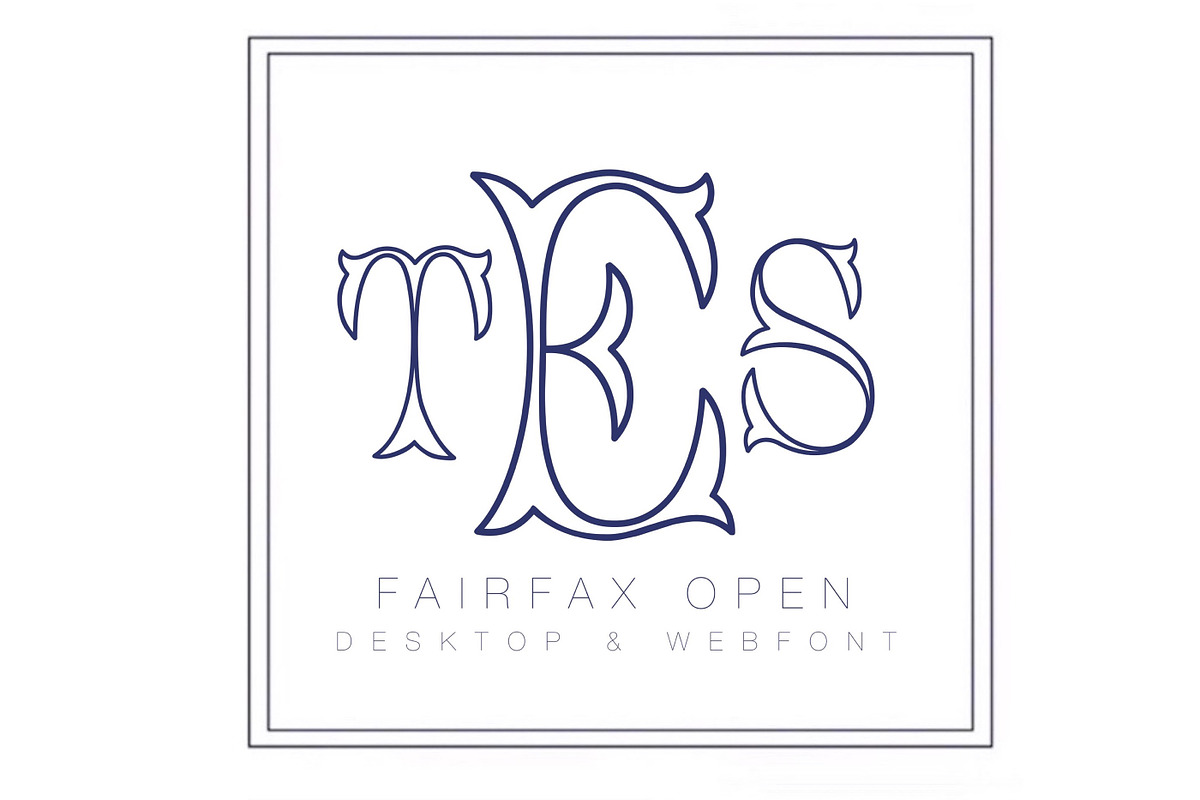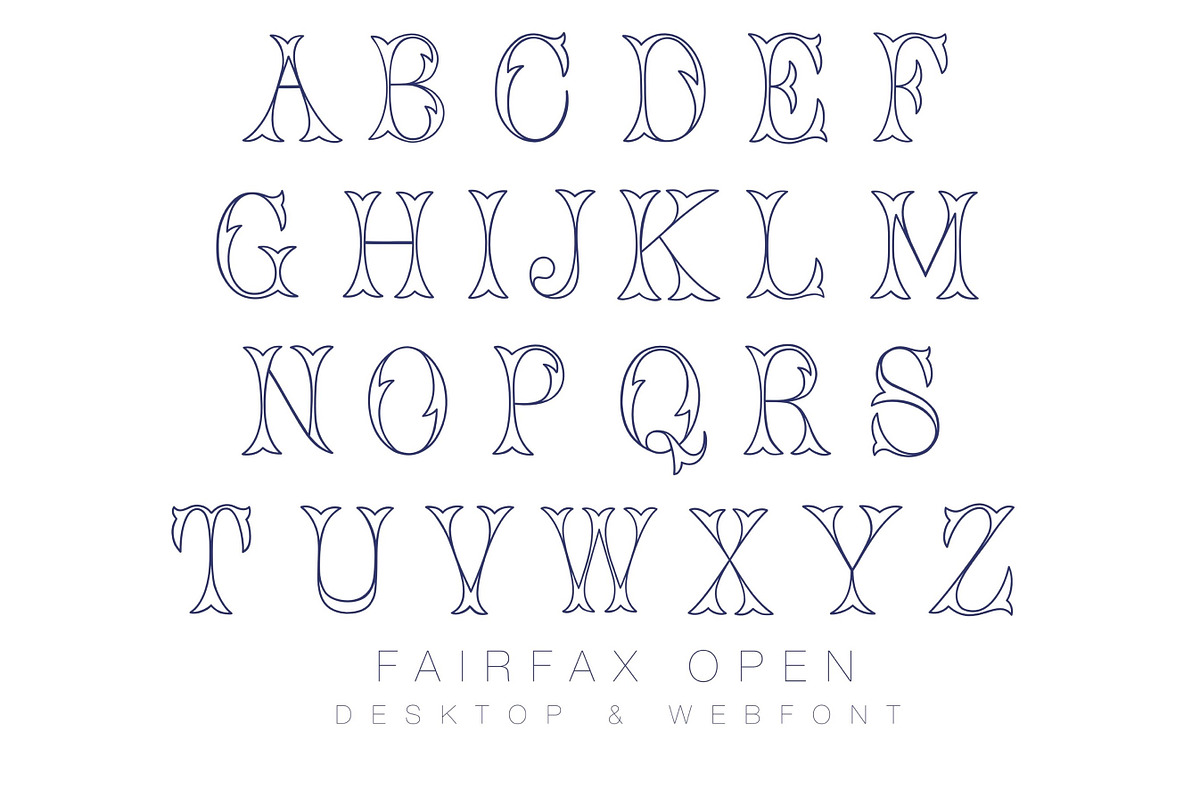
Fairfax Open Fishtail Monogram Font
Fairfax Open Fishtail Monogram Font by HERRINGTON DESIGN is a font selected for branding, posters, packaging, typography.
- The Fairfax Open Typeface font includes 26 letters in two sizes.
Why Fairfax Open Fishtail Monogram Font is worth a look
Fairfax Open Fishtail Monogram Font by HERRINGTON DESIGN fits naturally into Branding, posters, packaging, typography.